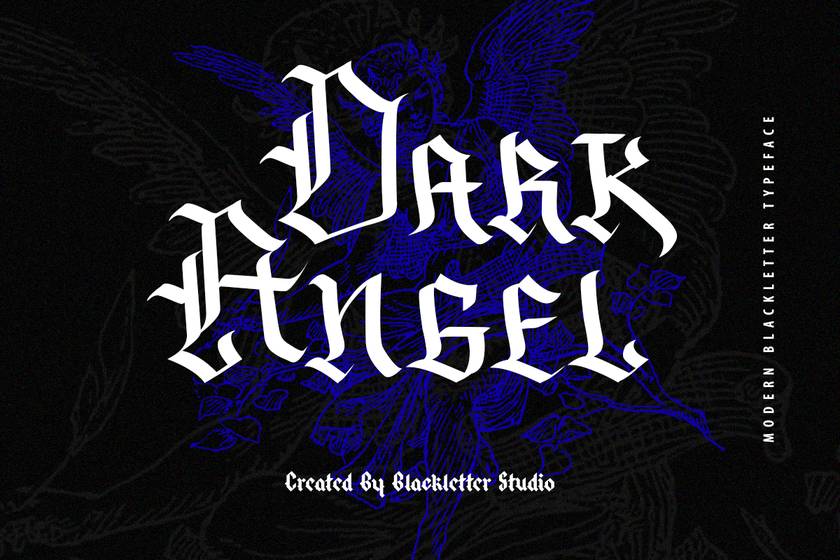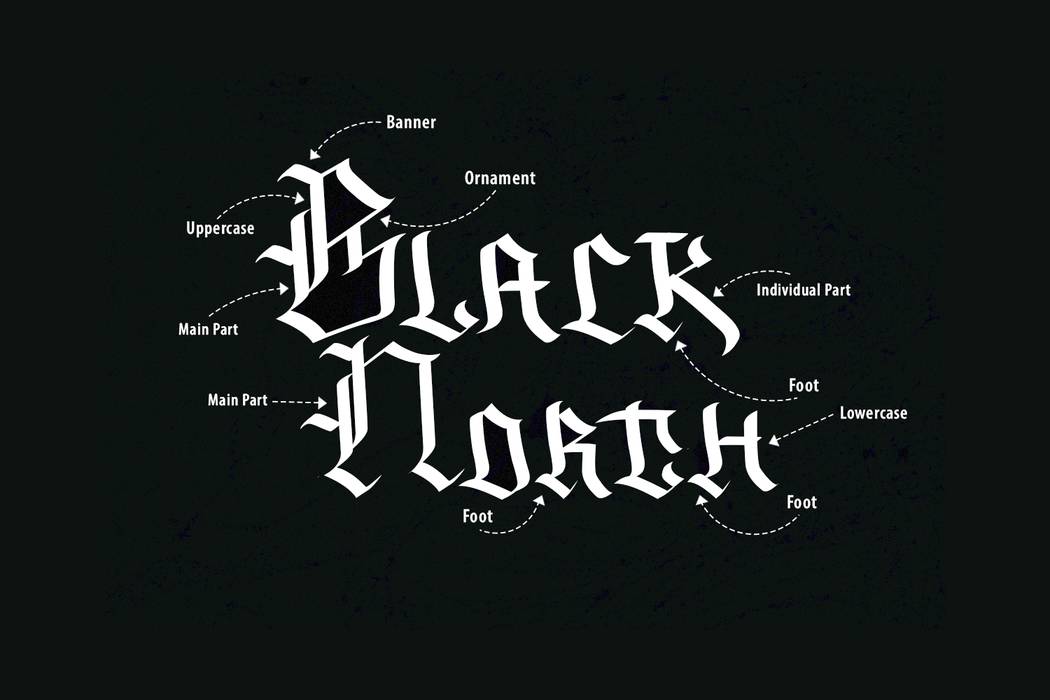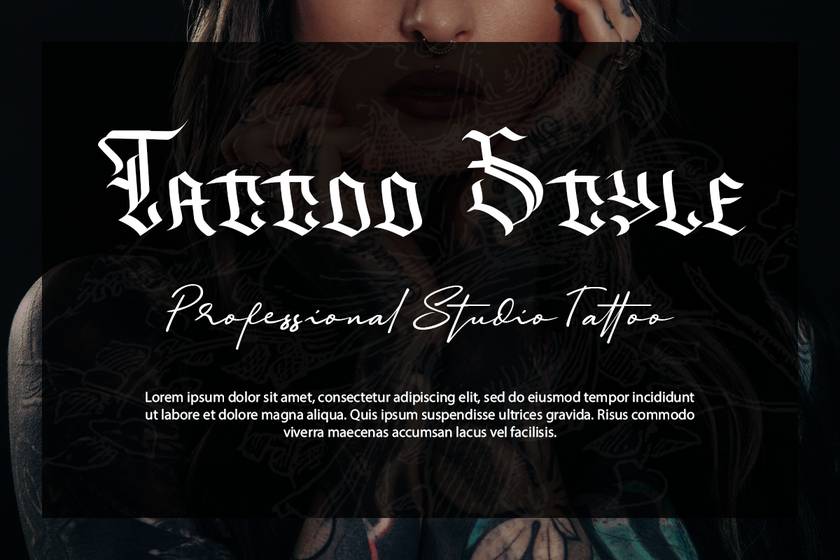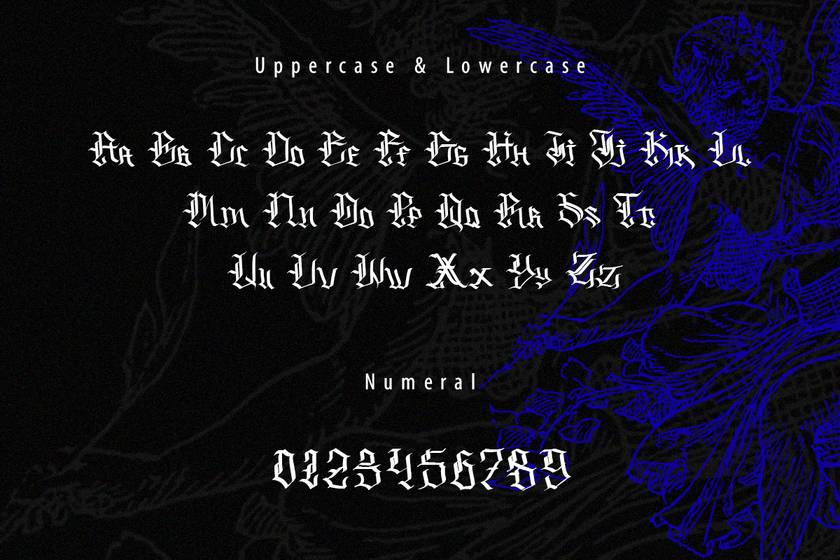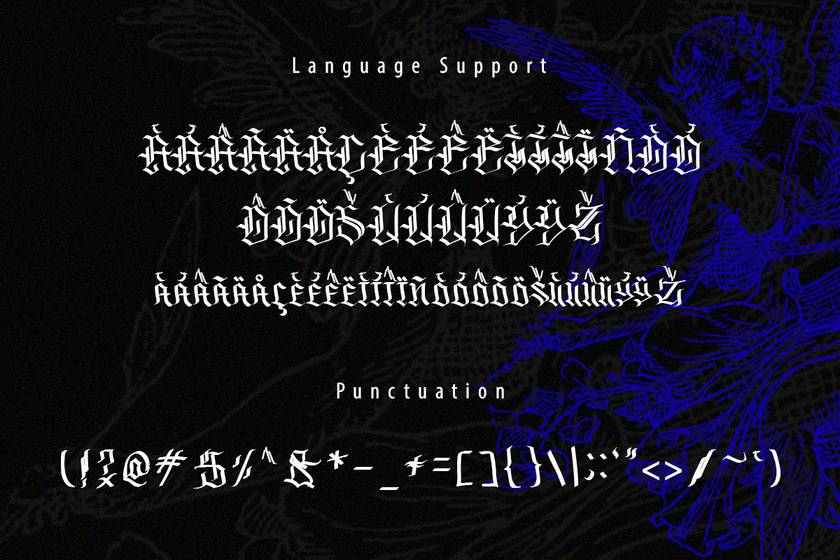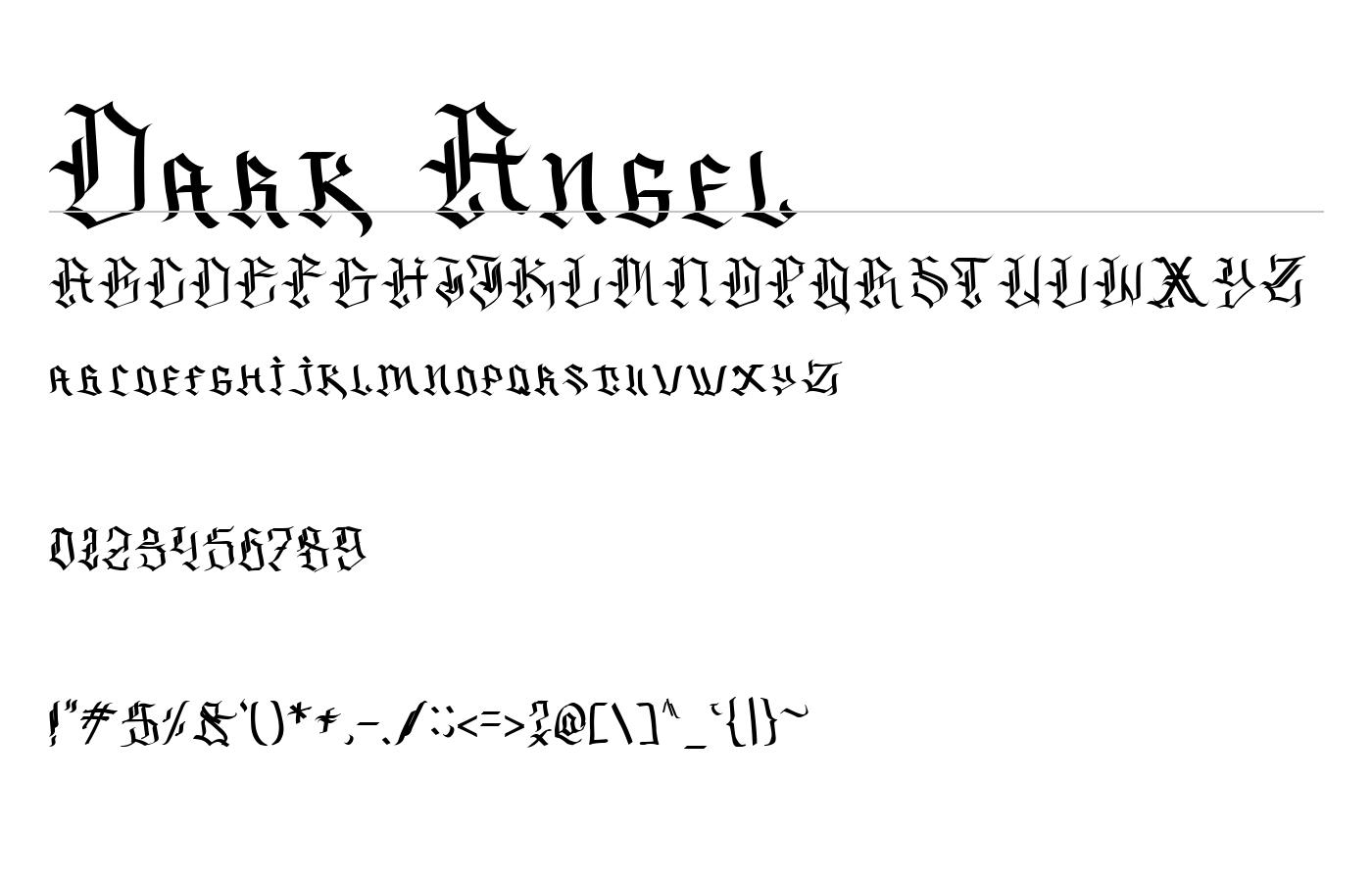
Dark Angel is a bold blackletter serif font with a strong gothic vibe, featuring sharp, angular strokes and high contrast between thick and thin lines. It conveys a dramatic, vintage feel, making it ideal for headlines, logos, or designs seeking an edgy, historic, or dark aesthetic. This font works well in branding, posters, and editorial projects where a striking, ornamental style is desired.
Dark Angel Font
About Dark Angel Font
| Font family | Dark Angel Font |
| Release date | 2021-10-07 |
| Designer | Blackletter Studio |